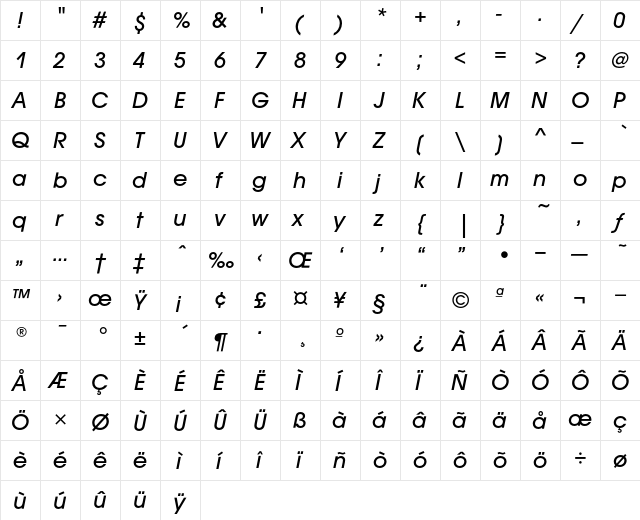
AvantGardeMdITC Oblique
Design Context for AvantGardeMdITC Typeface
AvantGardeMdITC is a composed and adaptable typeface that performs quietly and consistently across a wide range of design contexts. Its italic angle brings a sense of urgency and motion to the letterforms.
Pro Tip: Use AvantGardeMdITC for emphasis, pull quotes, and subheadings where its slanted energy can add rhythm to the layout.